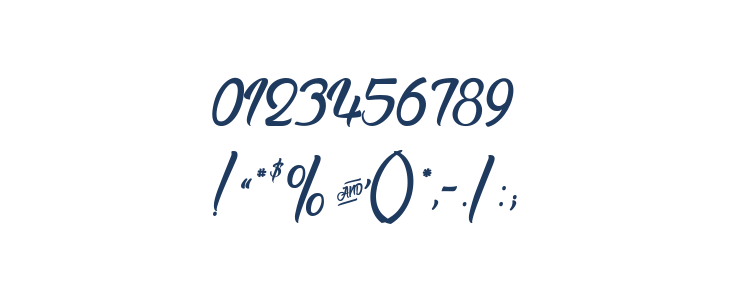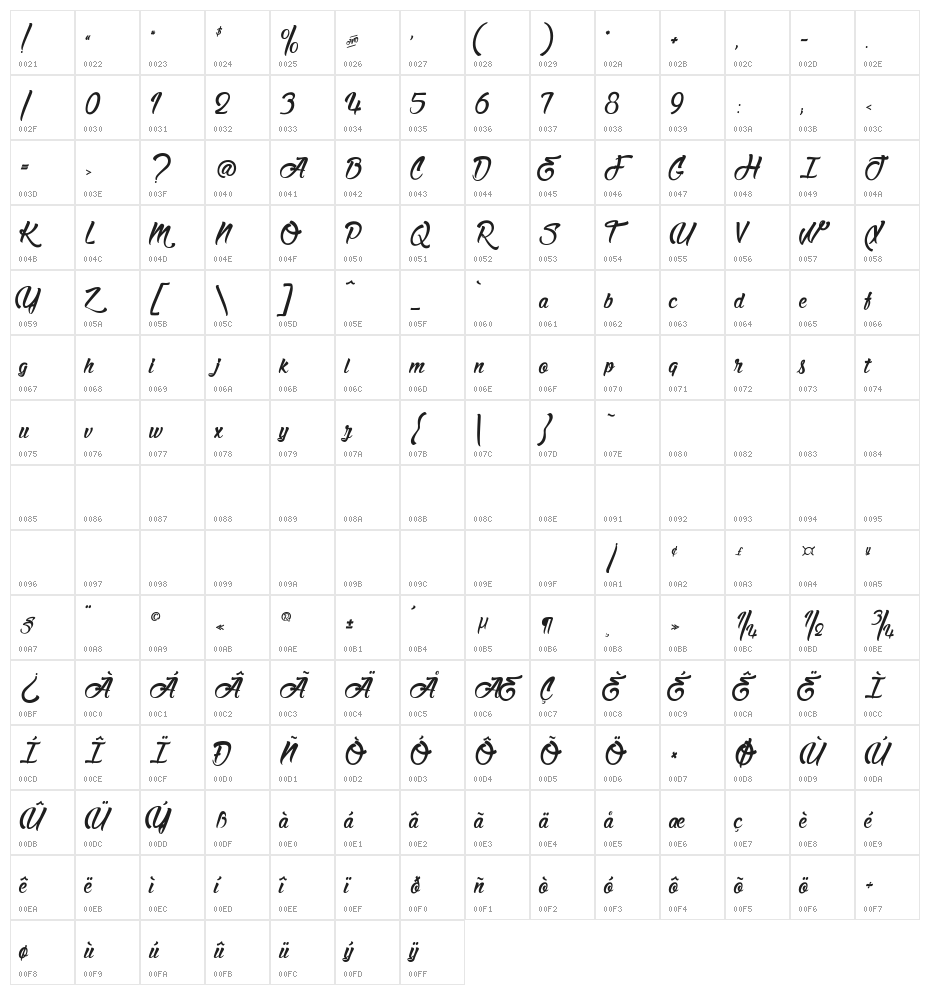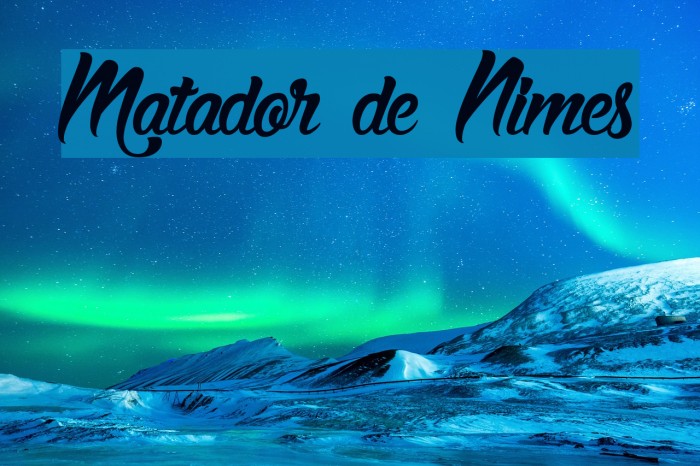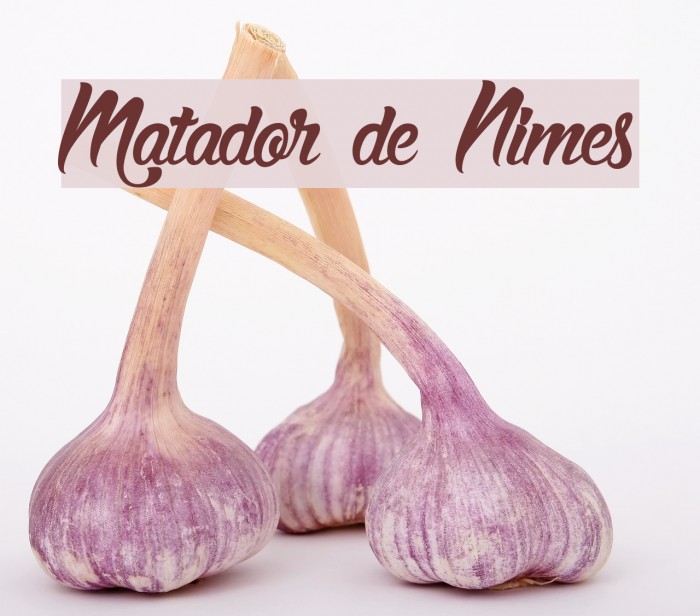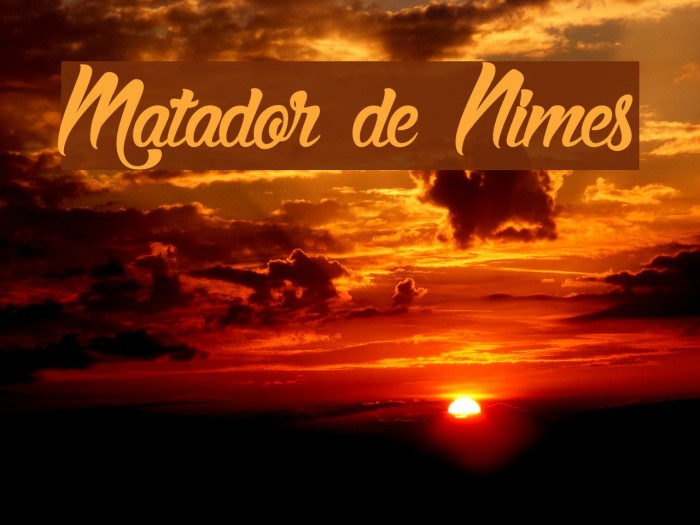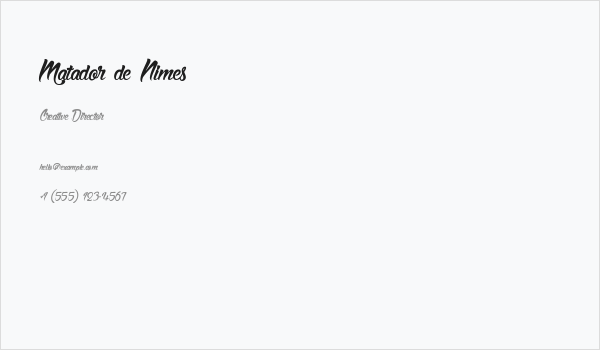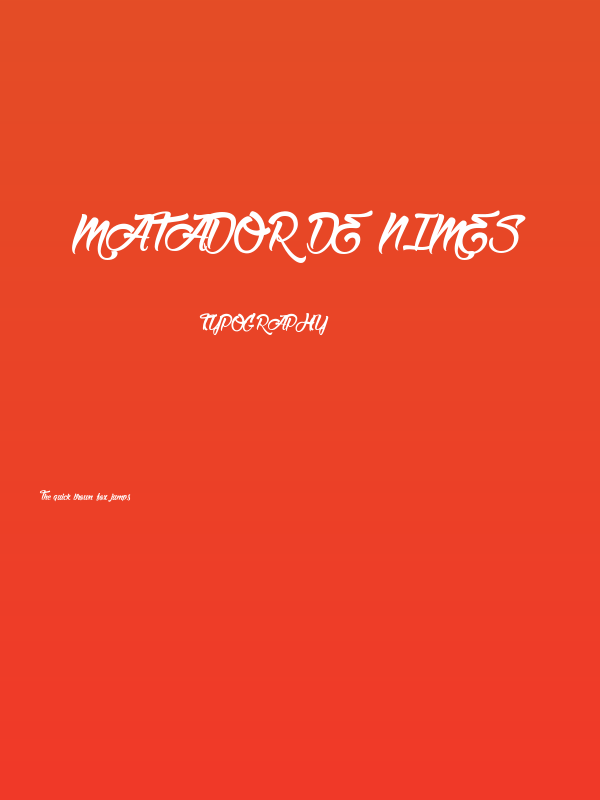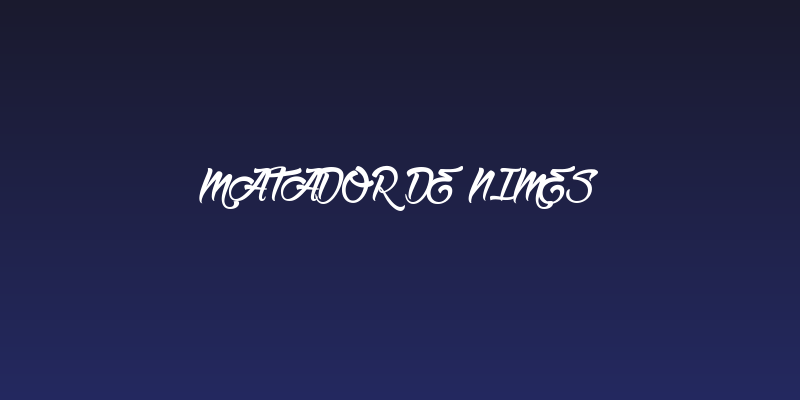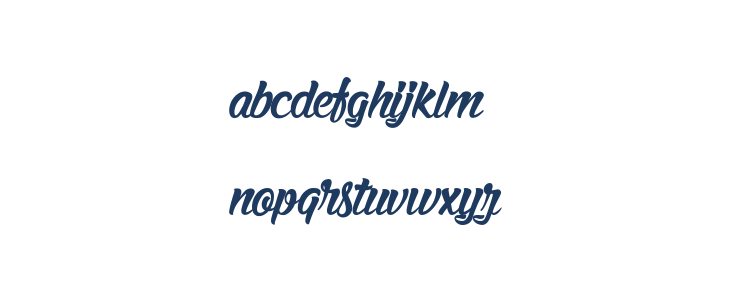
Matador de Nimes Font
Matador de Nimes Description
This font features a dynamic and flowing script style, characterized by its elegant and cursive letterforms. The uppercase letters exhibit a bold and sweeping design, with pronounced curves and flourishes that add a sense of movement and grace. The lowercase letters maintain a consistent style, with smooth connections and a slightly more compact appearance. The numerals are designed to match the overall aesthetic, with similar curves and a balanced structure. Special characters are included, enhancing the font's versatility for various applications. This font is ideal for projects that require a touch of sophistication and artistic flair.
Use CaseLogos, Invitations, Branding
Proposed ProjectsIdeal for wedding invitations, branding, logo design, and elegant packaging.